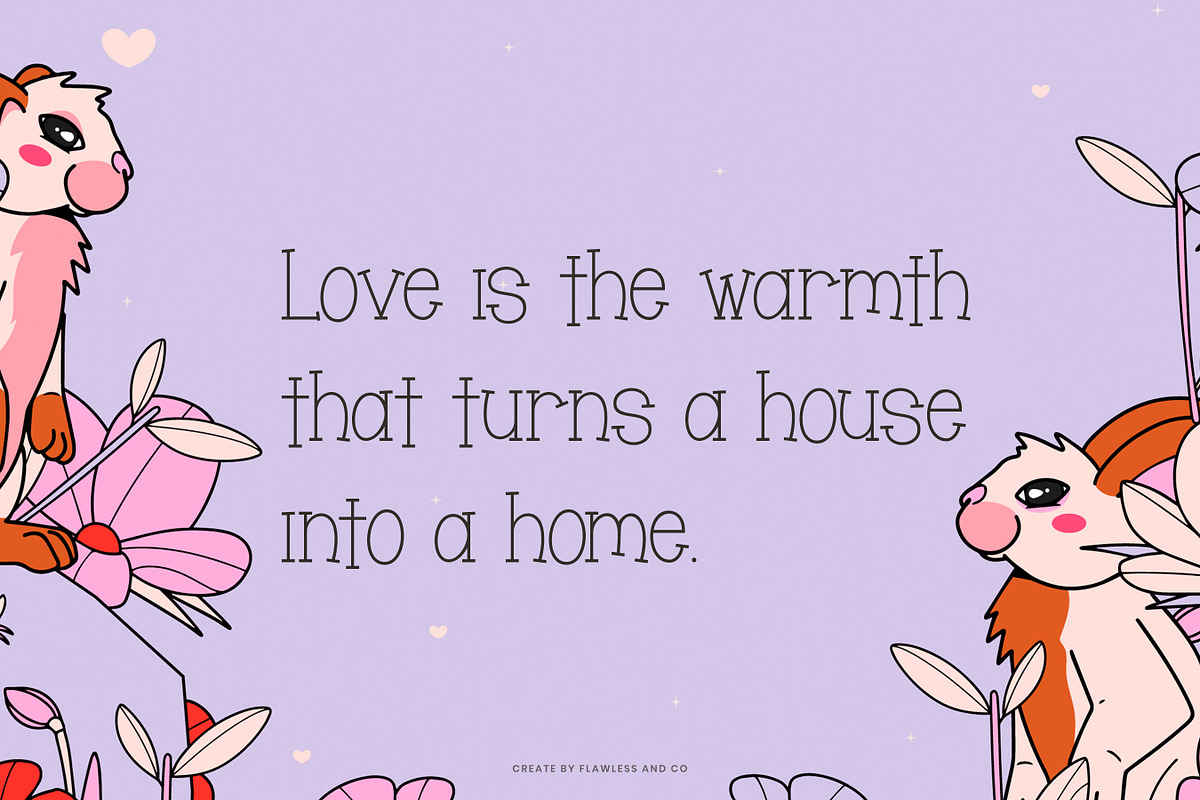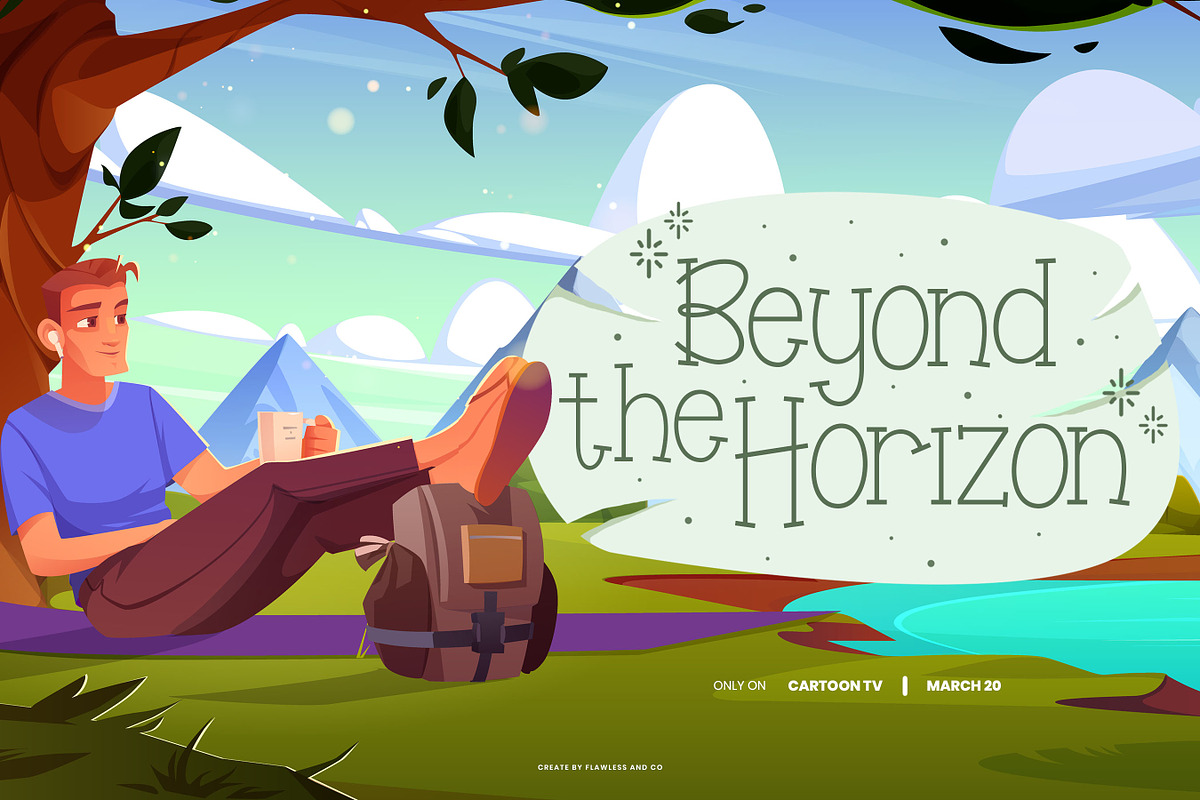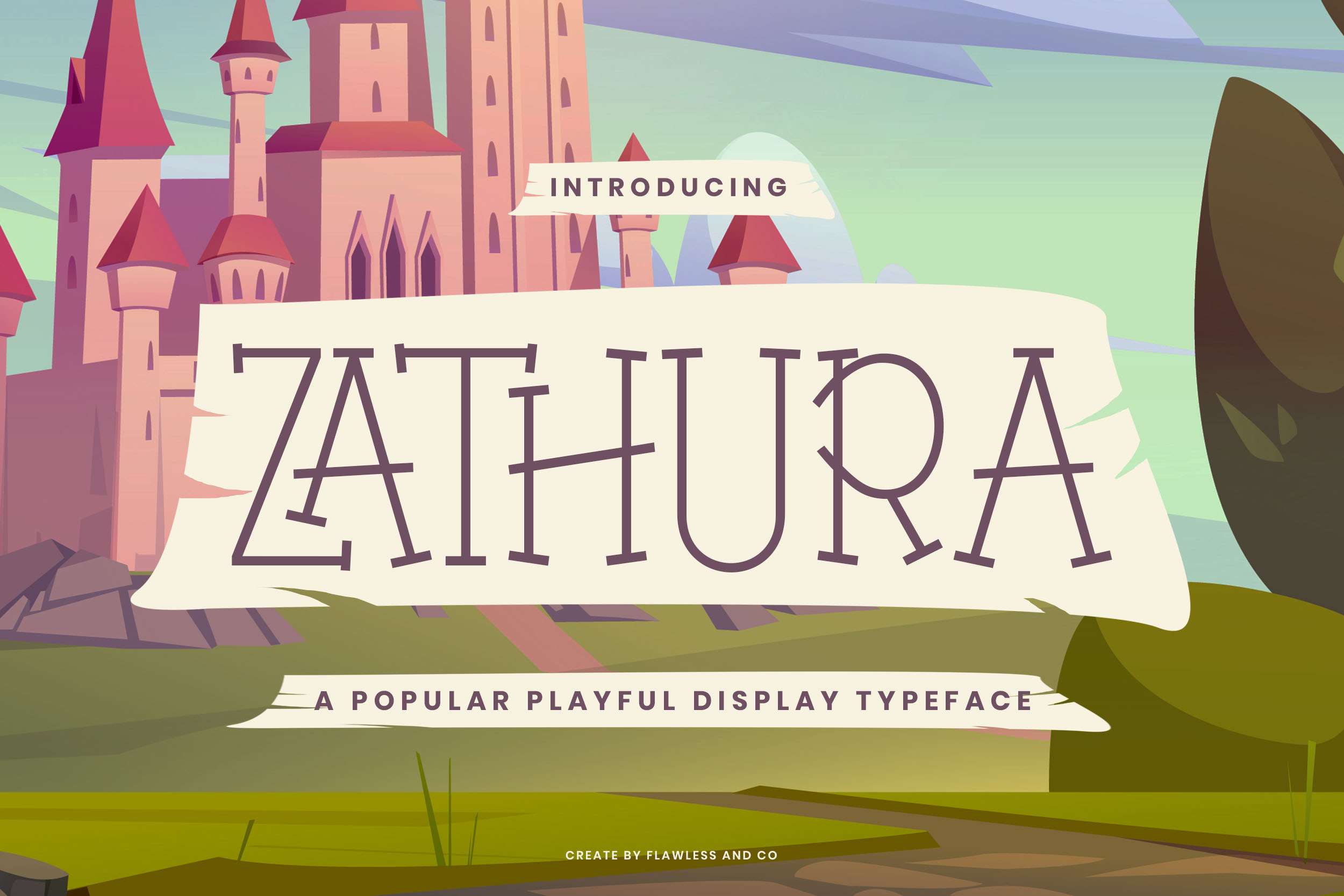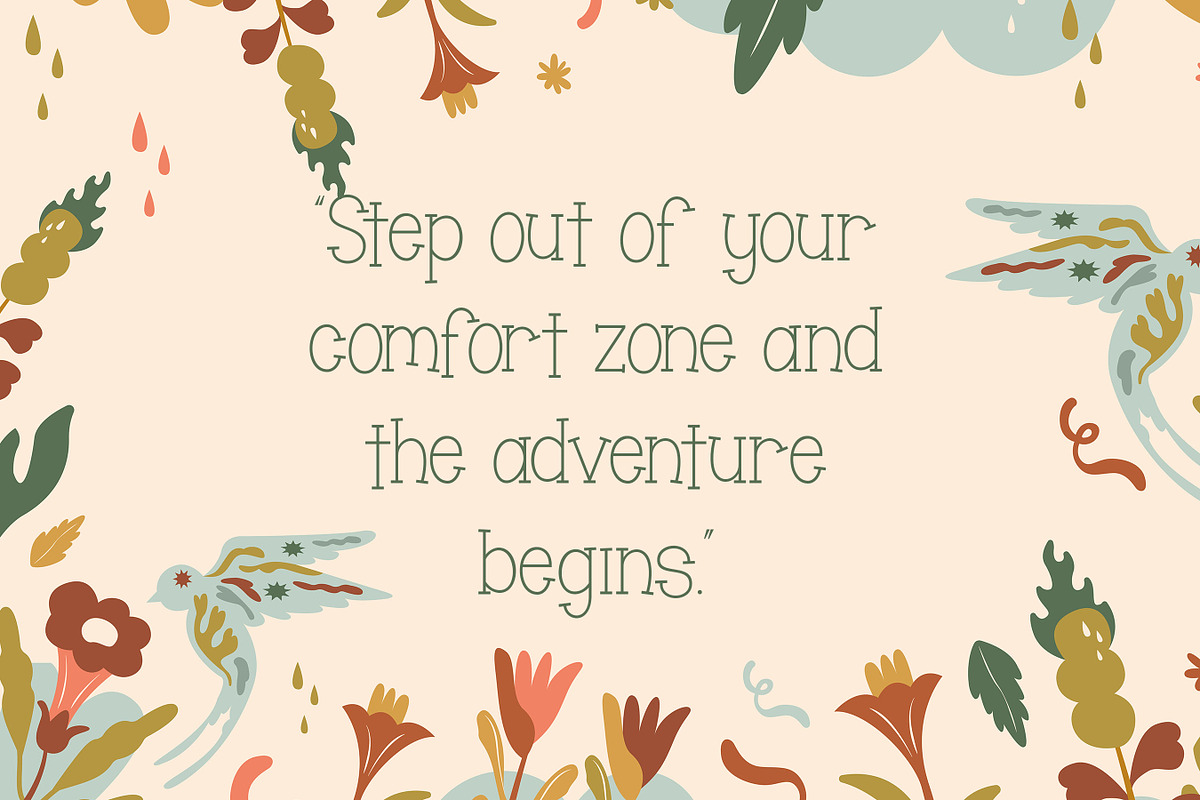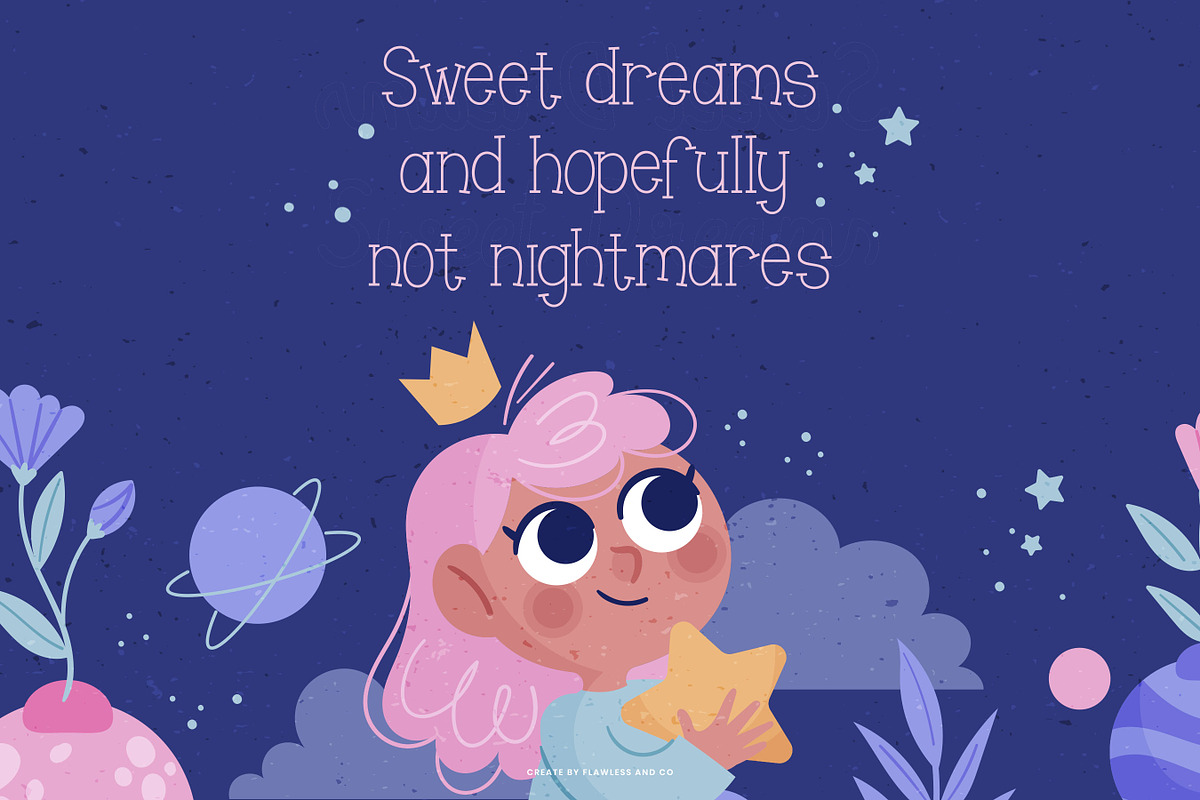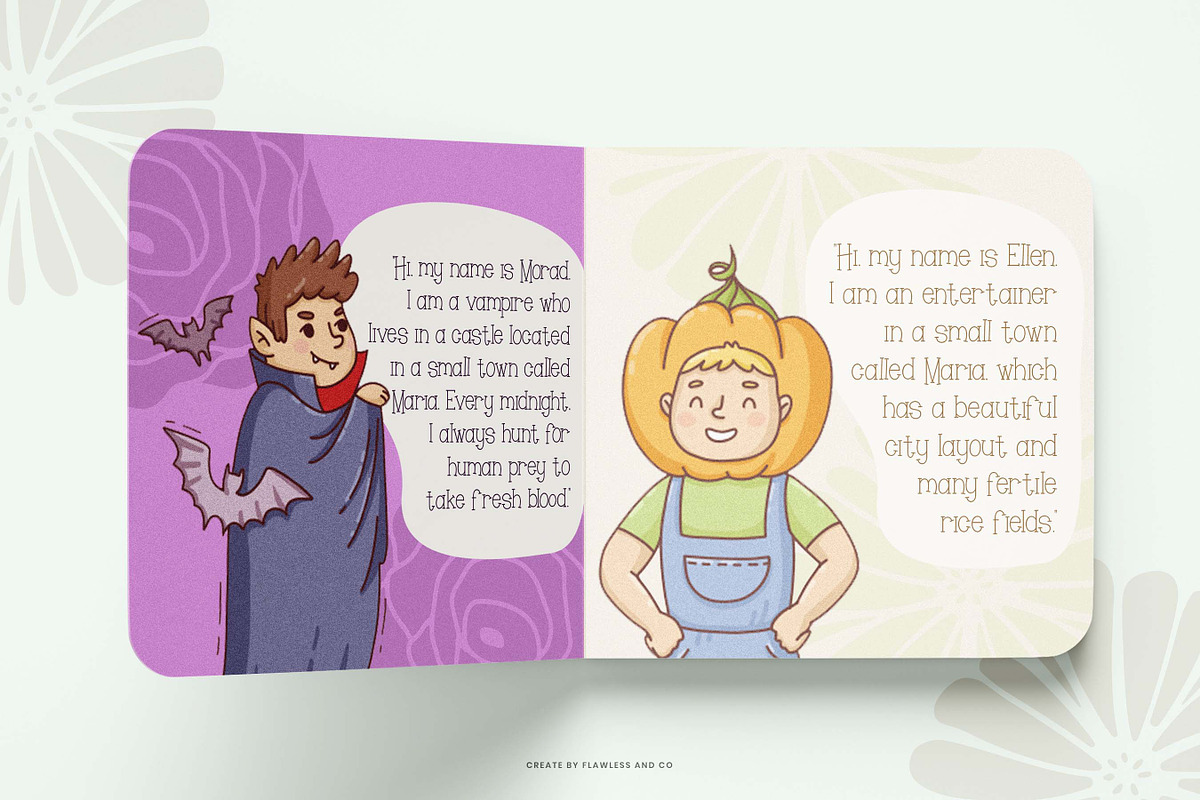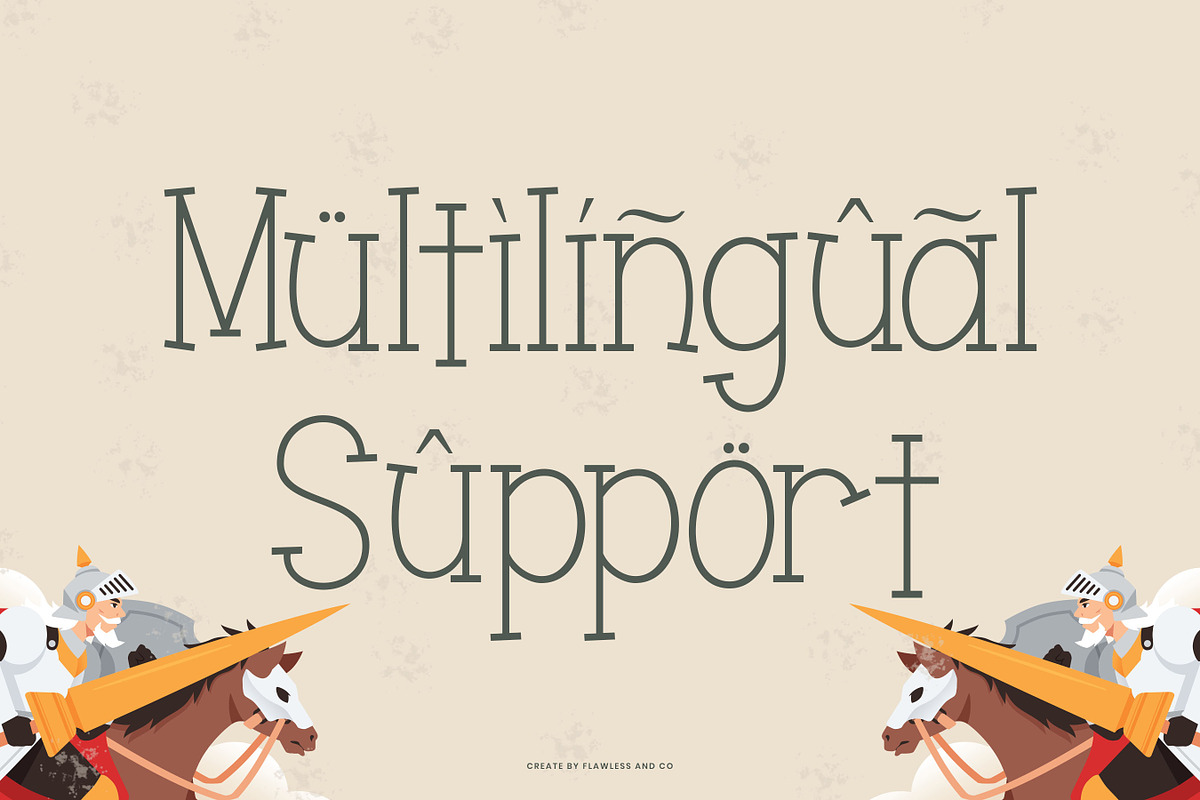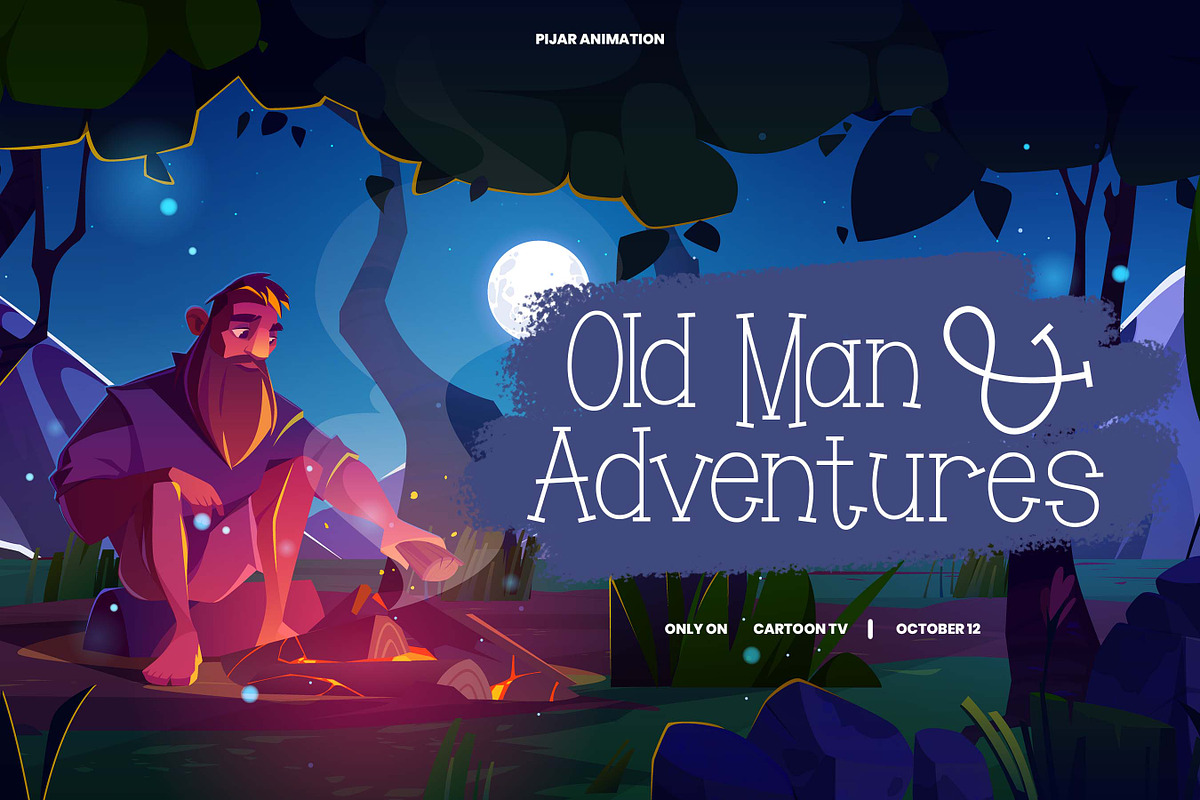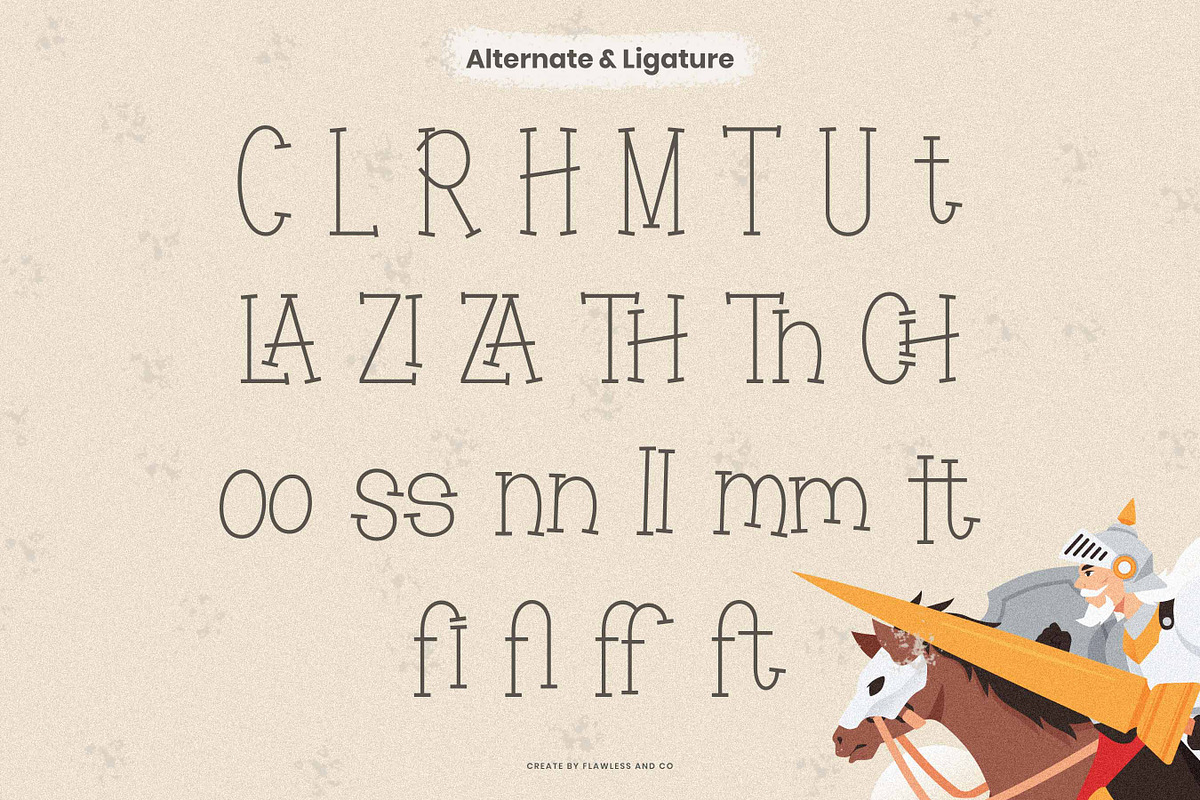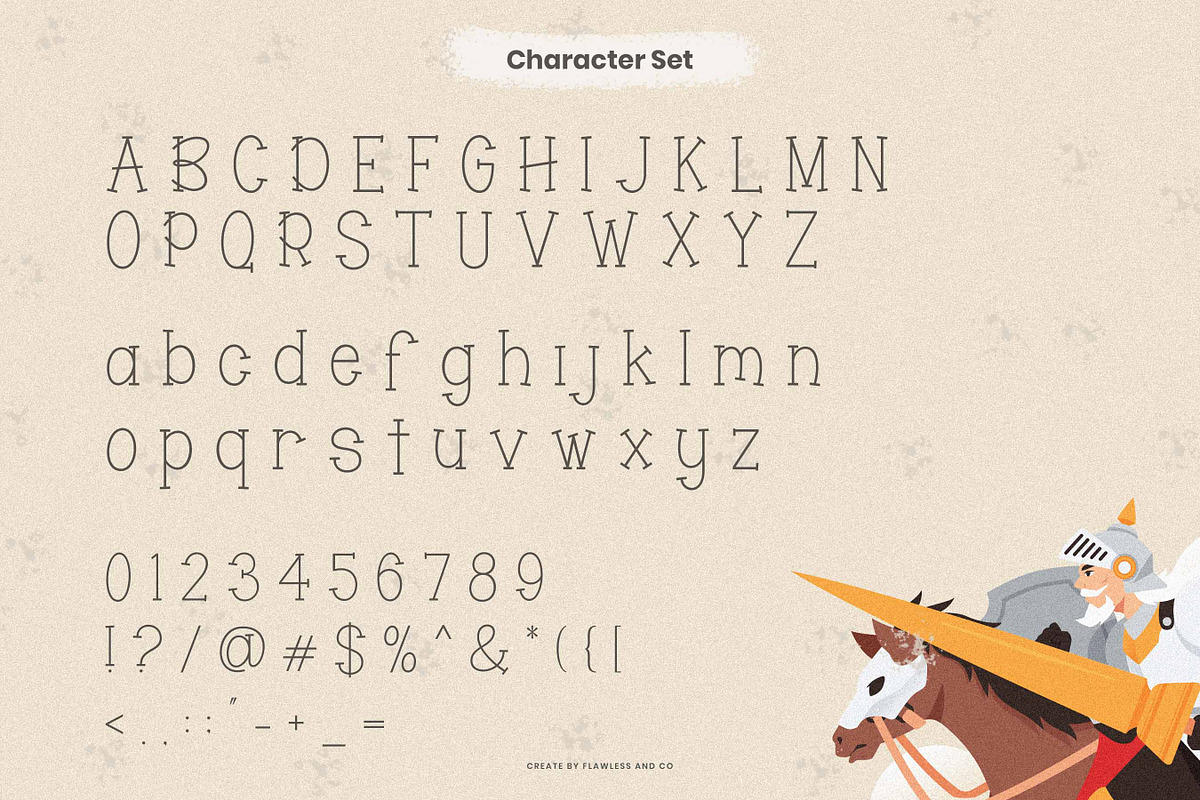
Zathura- Playful Display Font
Zathura is a cheerful display font inspired by the world of cartoons. Perfect for children’s book titles, toy packaging, birthday invitations, cartoon logos, and other fun-themed projects, Zathura adds a sense of wonder and creativity wherever it’s used. Its lively look makes it an ideal choice for designs that aim to entertain and delight! Included: